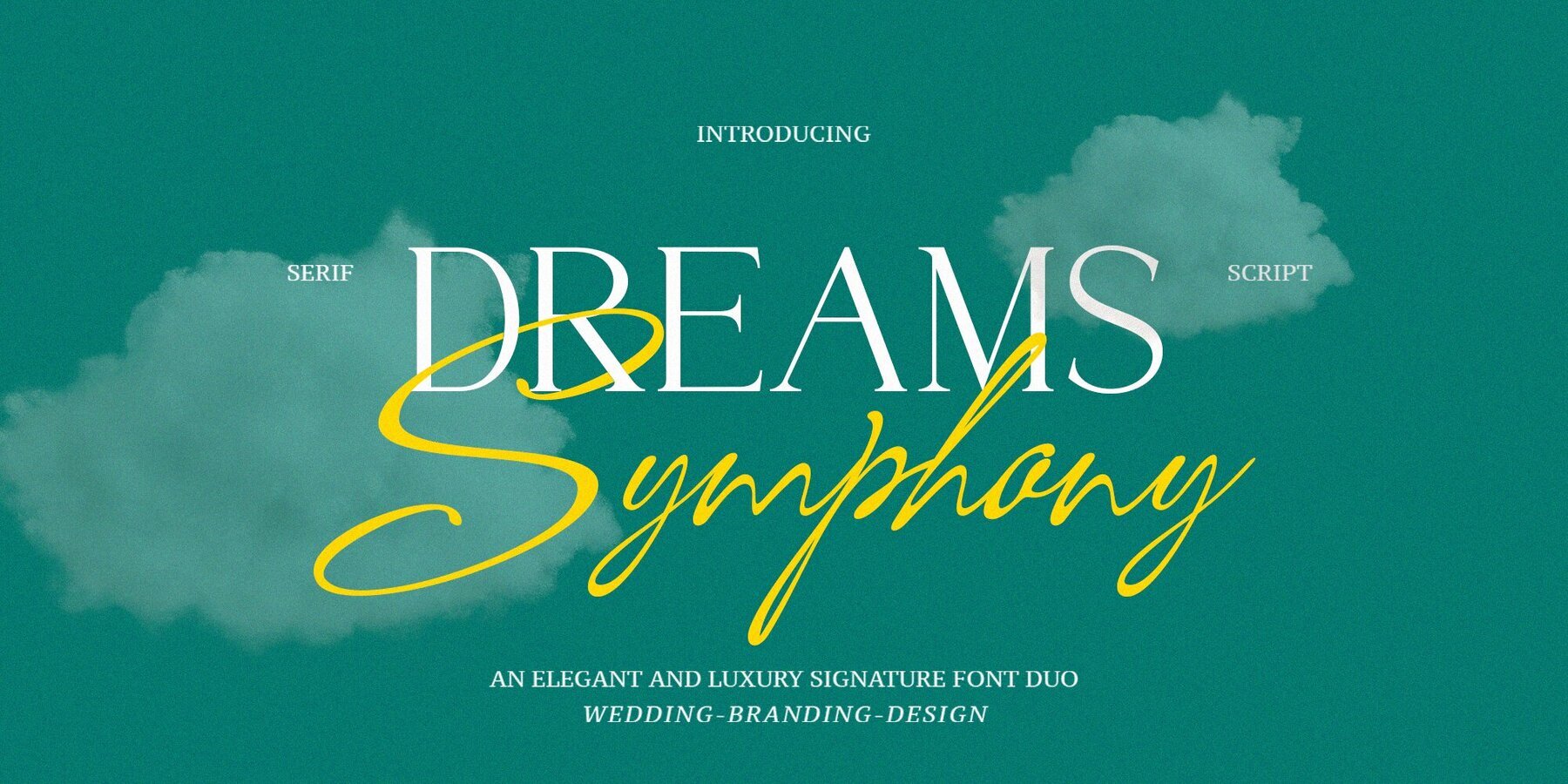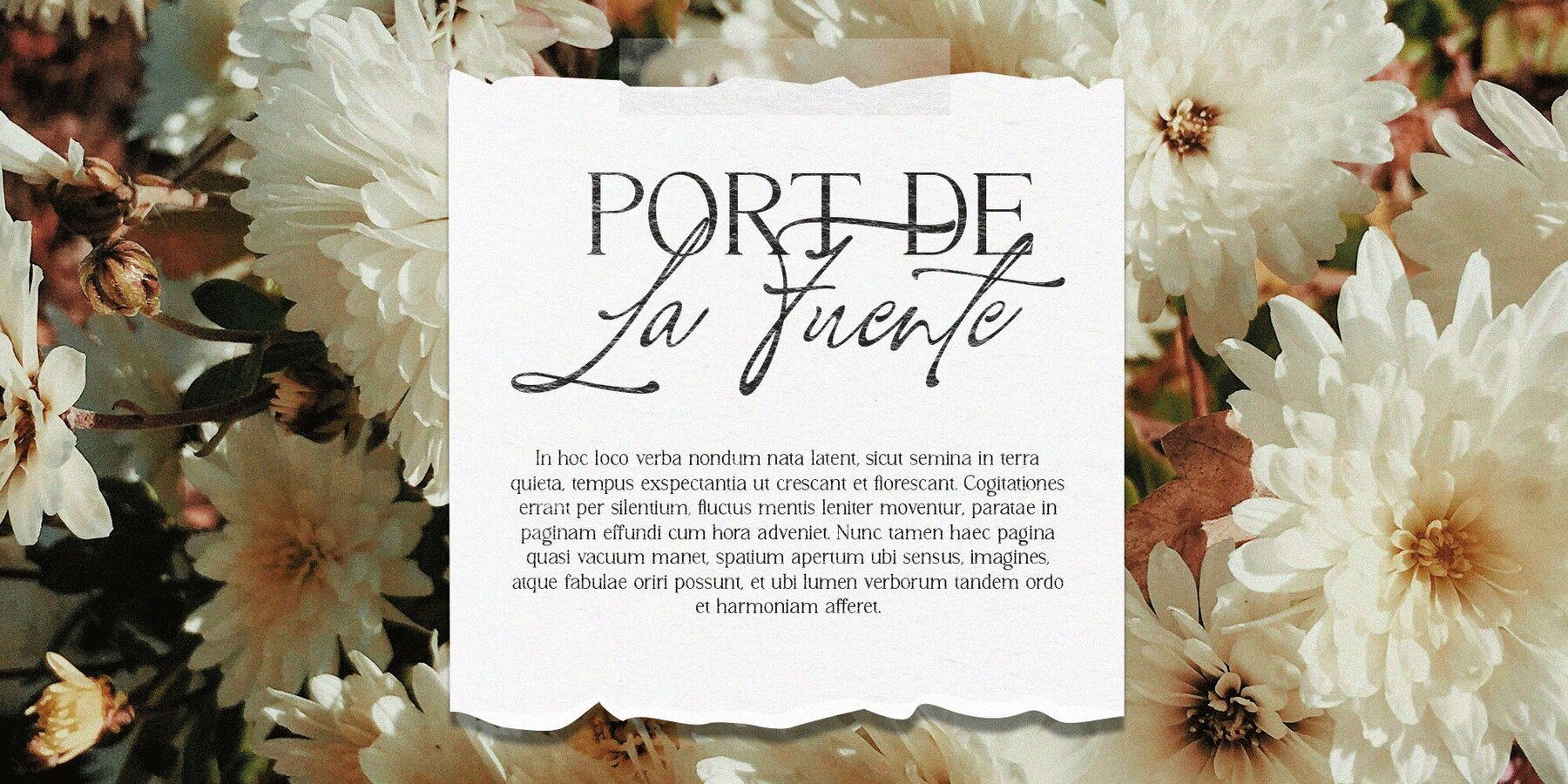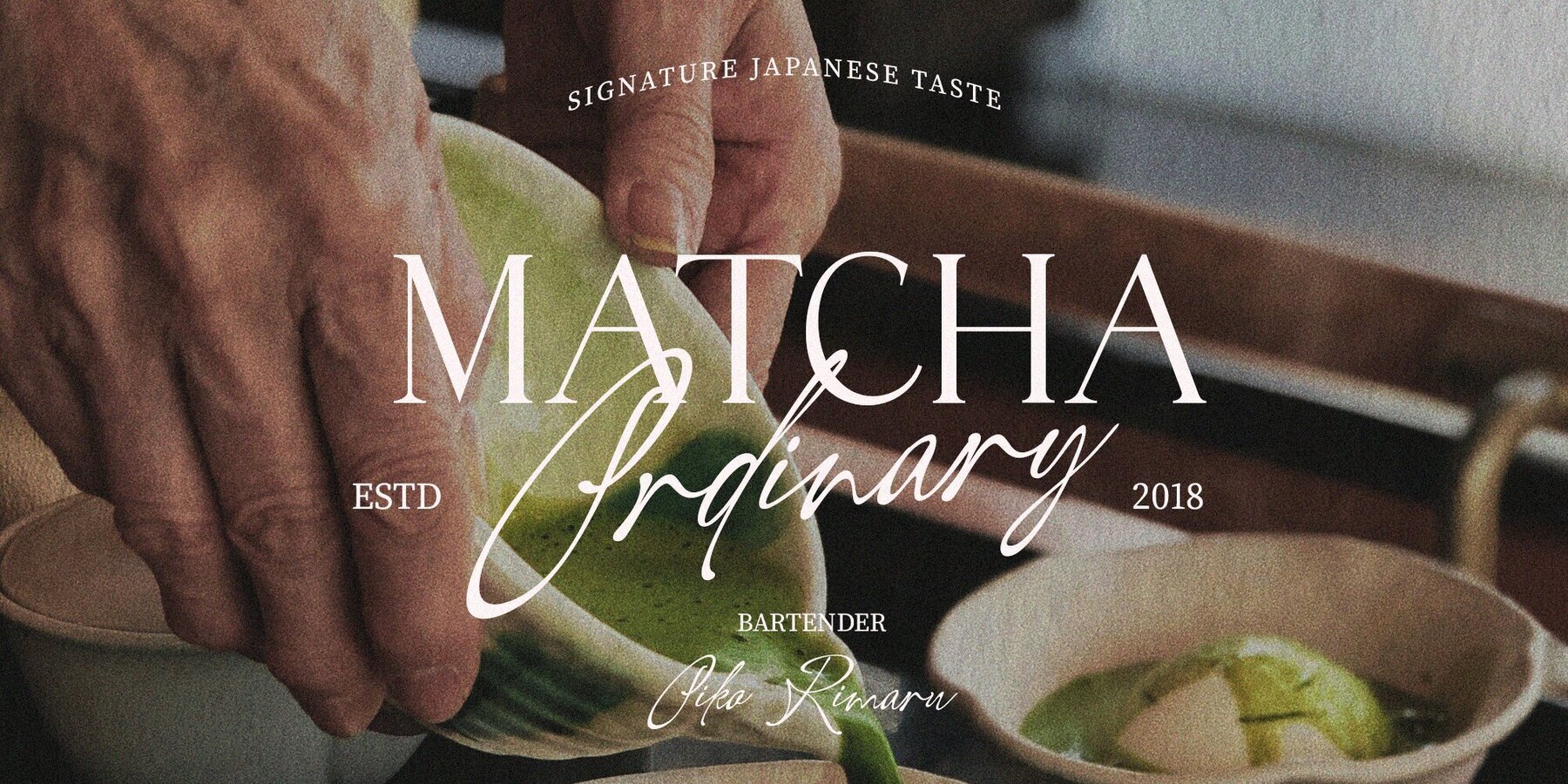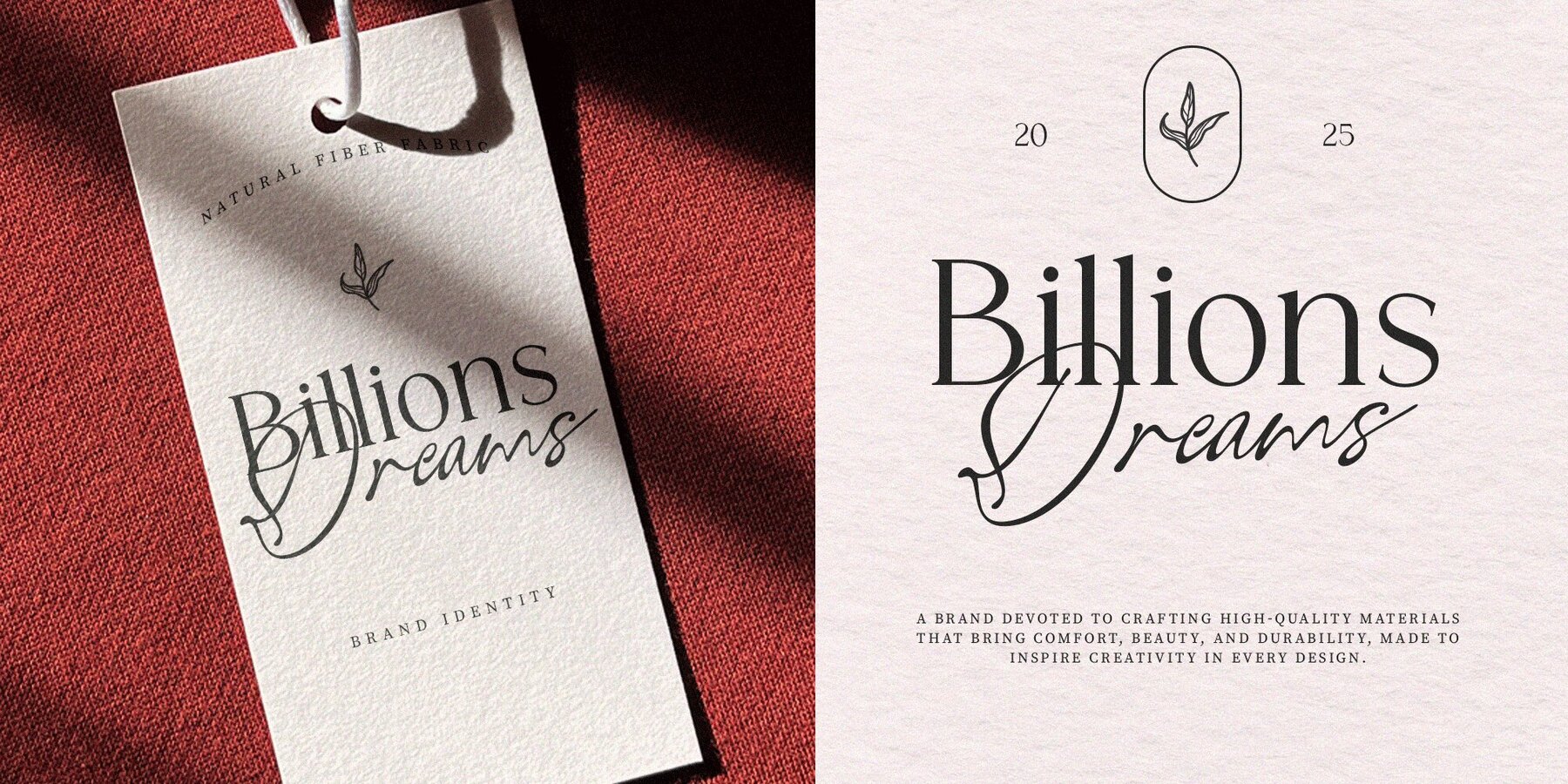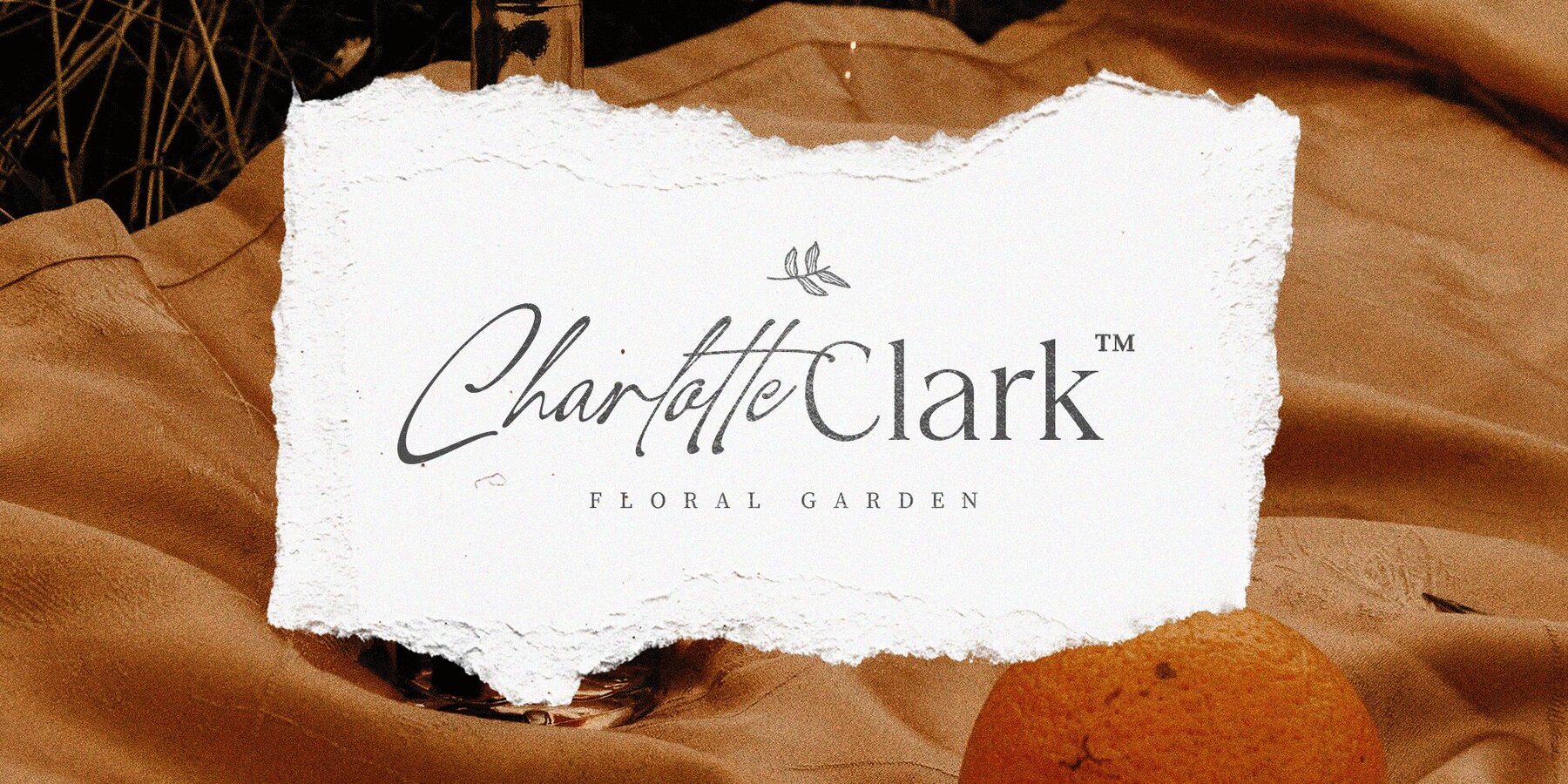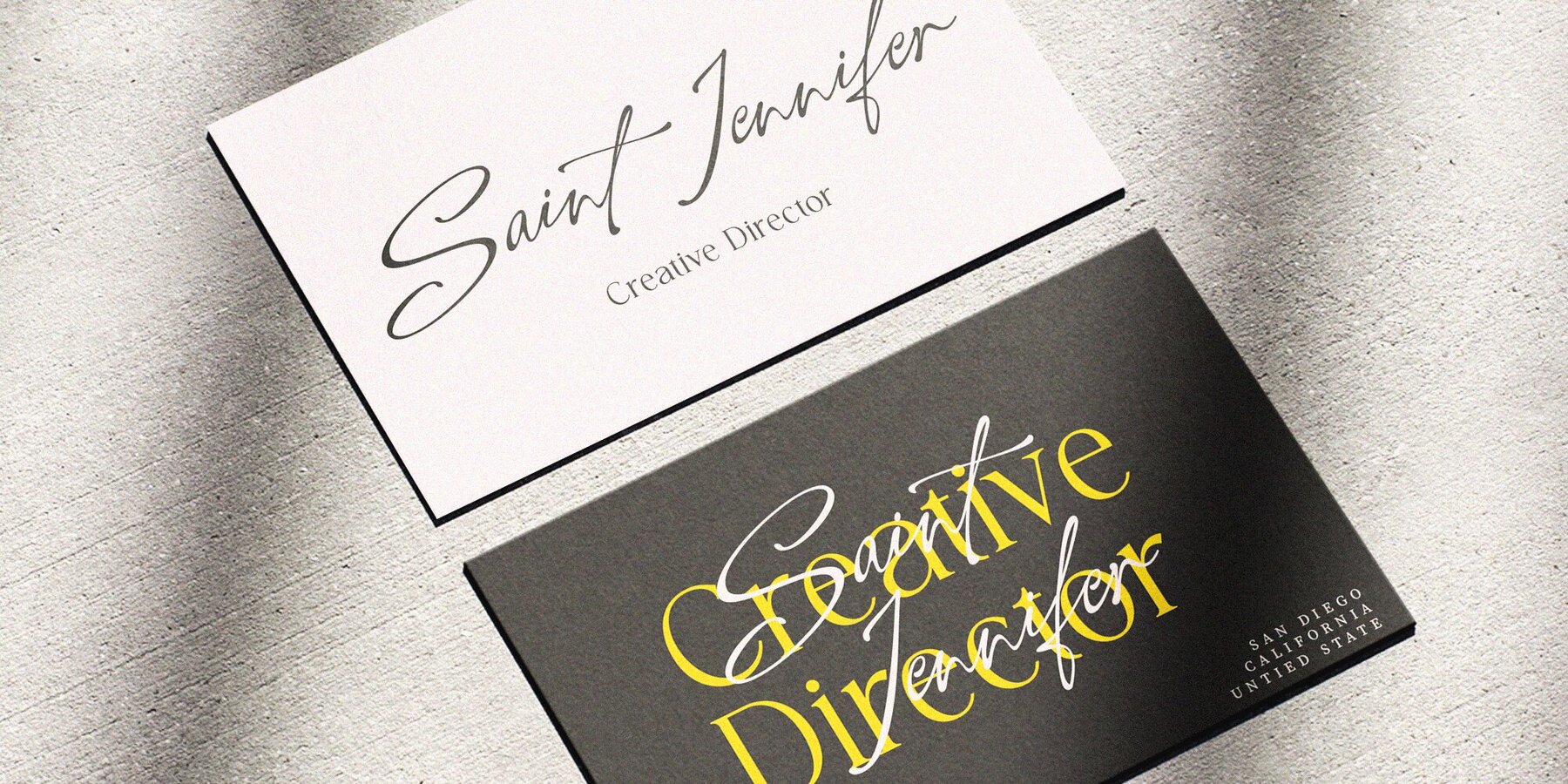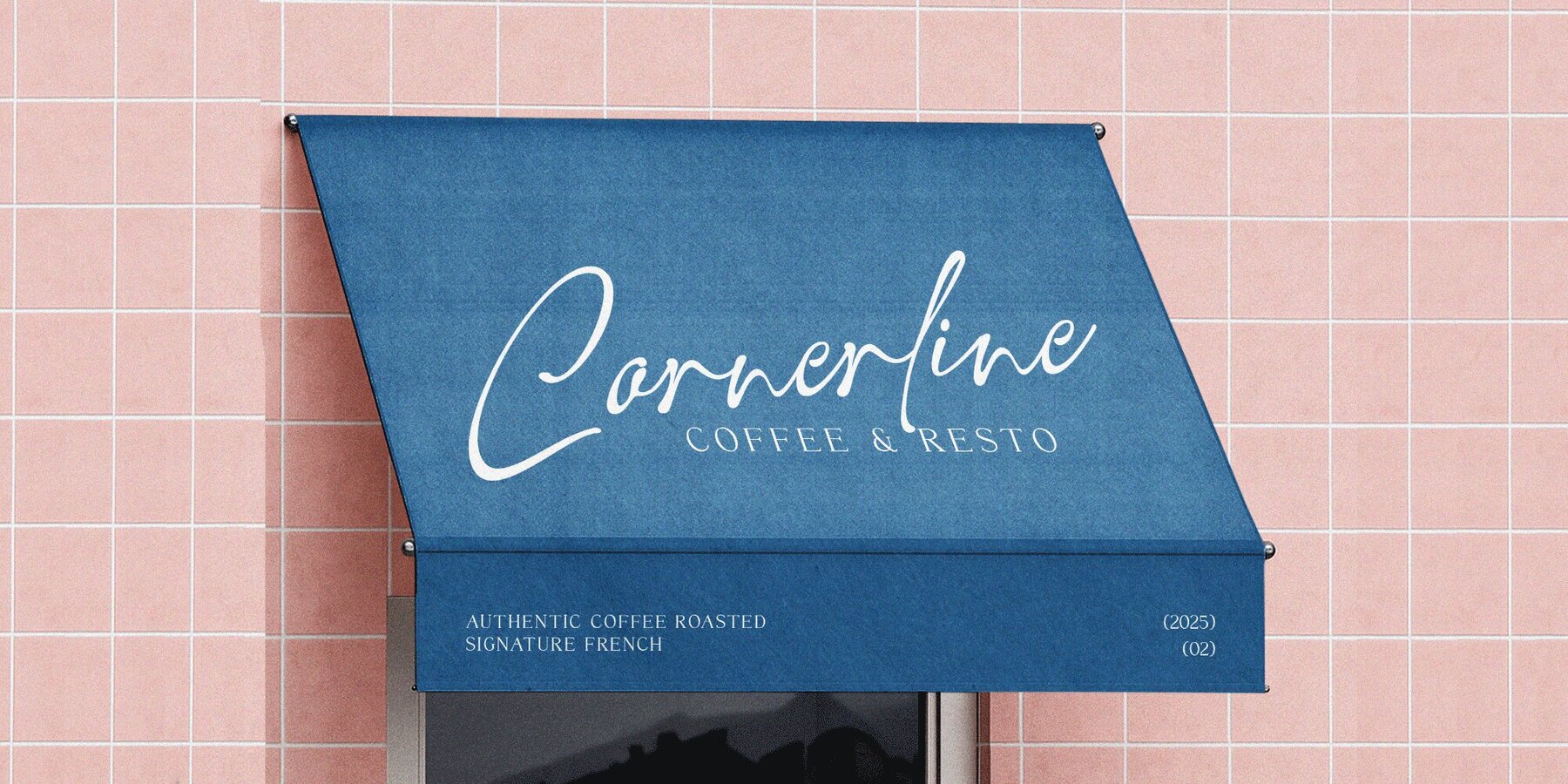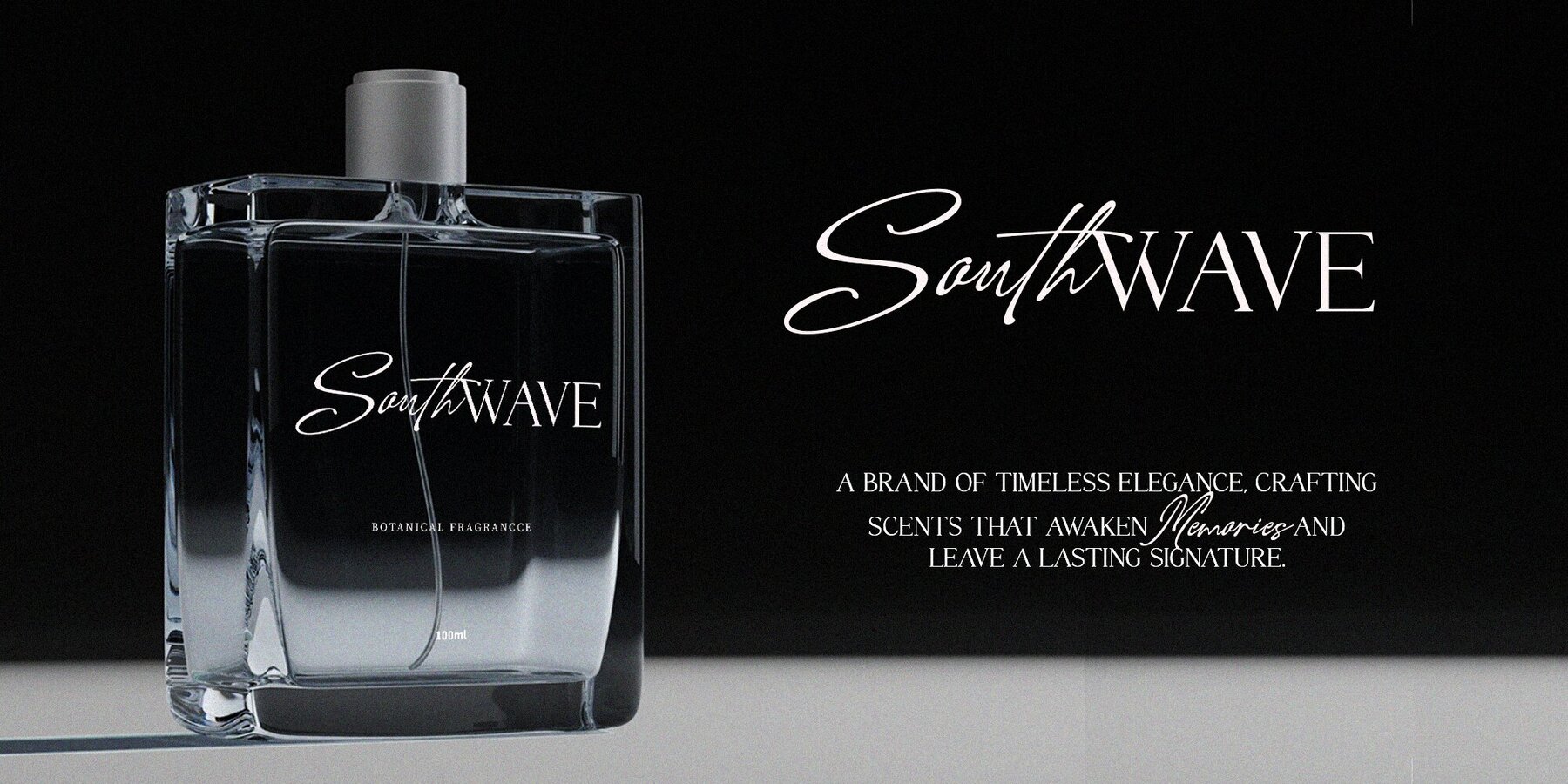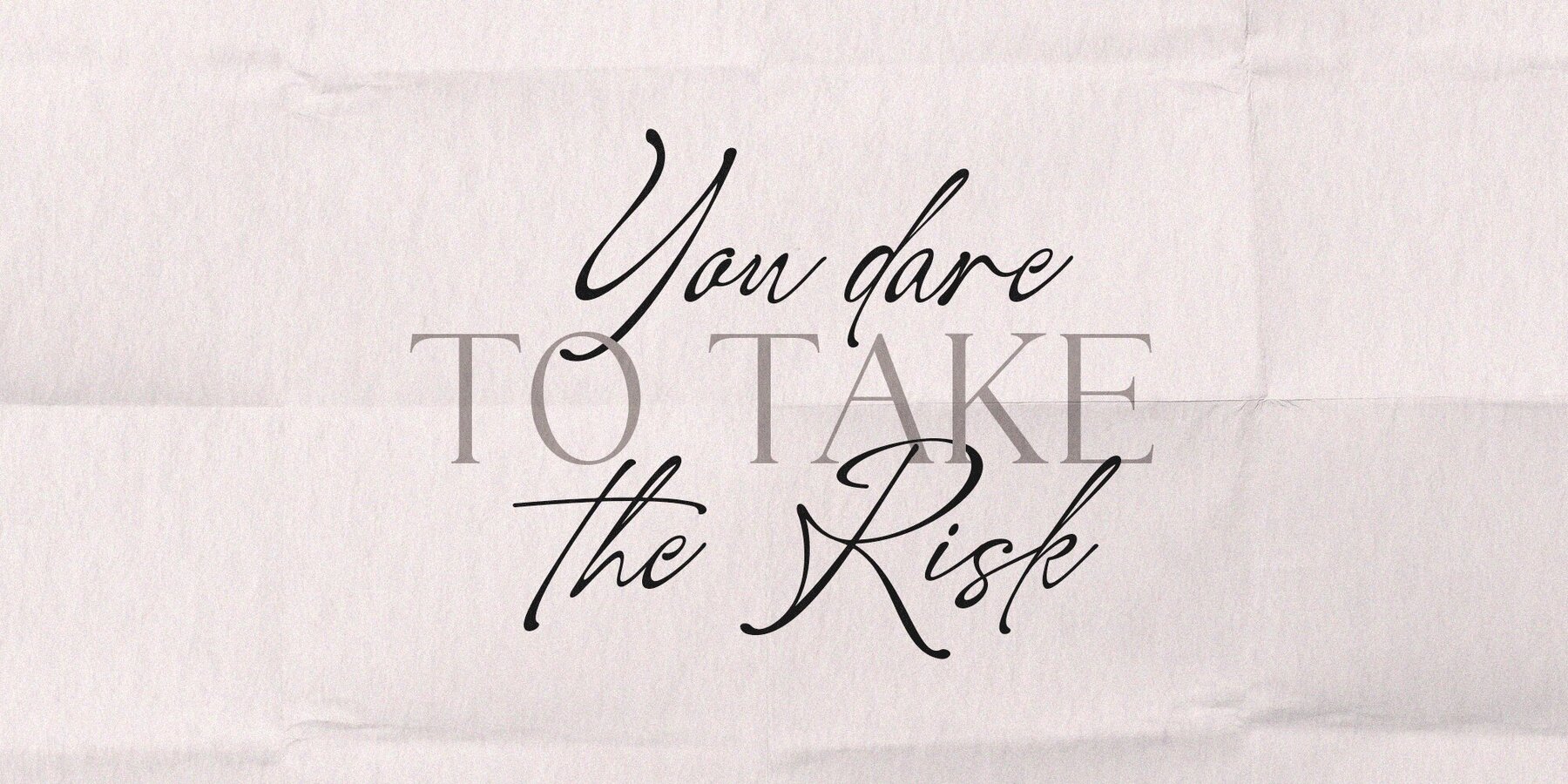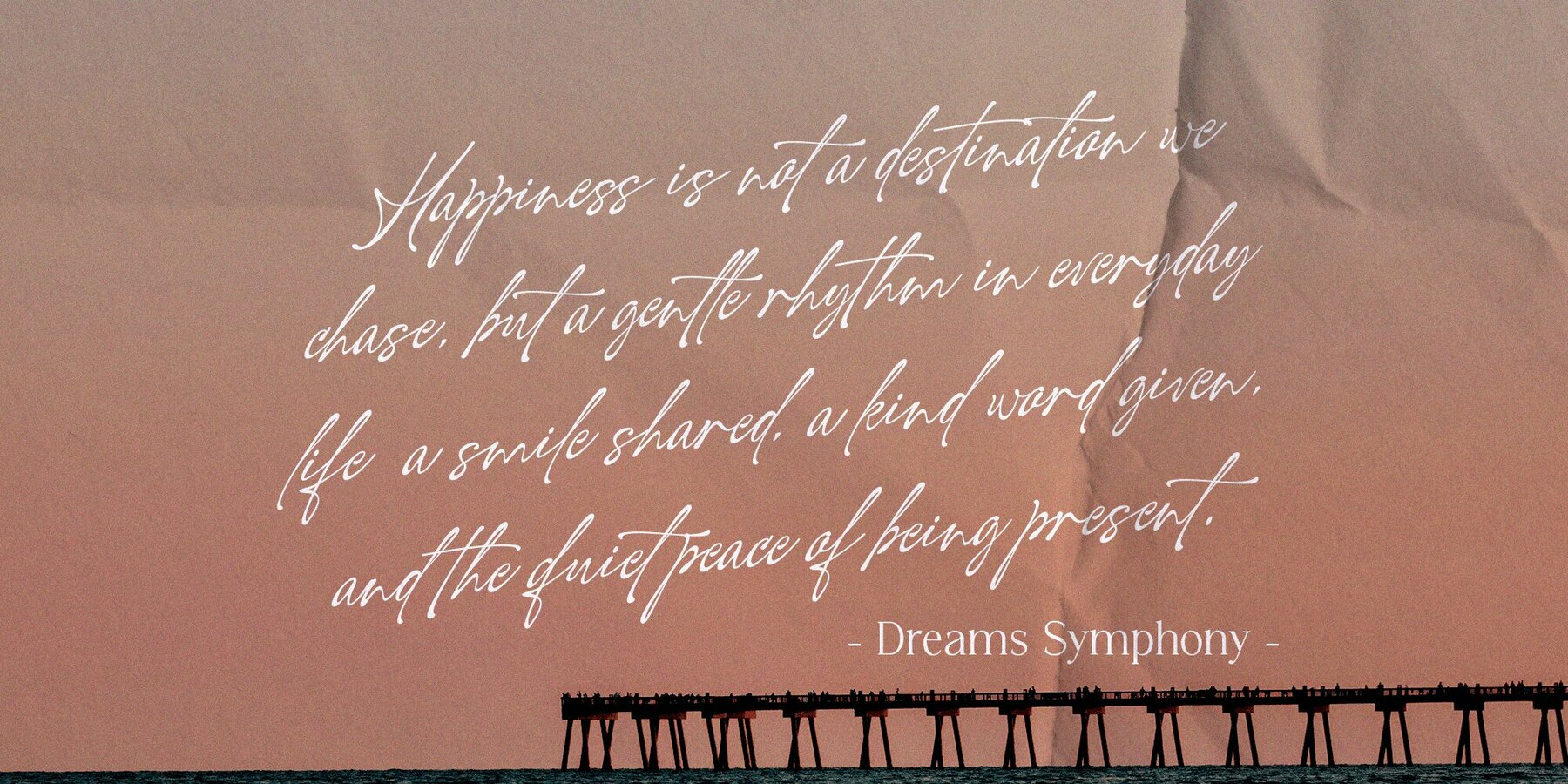
Dreams Symphony Font
expand_font Dreams Symphony Font Craft elegance with Dreams Symphony: A font duo blending artistry & clarity for logos, invitations, social media, & more. Chic,Stylish,Signature,Modern,Wedding,Logo,Minimalist,Elegant Chic,Watermark,Luxury,High Contrast,Vertical,Formal,Refined,Duo,Tall Explore Exceptional Fonts for Digital and Traditional Media Fontpath offers a large variety of fonts for every designer, all at affordable prices and in multiple formats. Browse our best in class fonts today for all your creative needs, you can find everything you need right here at our site! Fonts,sans,sans serif,retro,script,decorative,title,FontPath 20140312040223 Fontpath offers 200,000+ of the most professional fonts found online, start downloading today! Real-Time Font Discovery at Fontpath